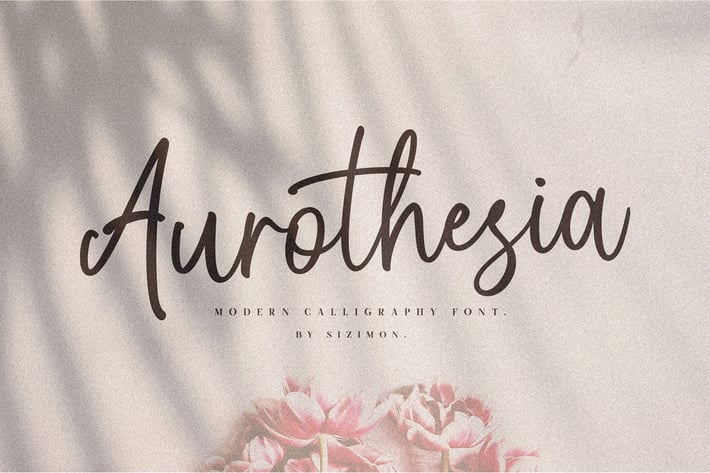
Aurotheisa Font Duo!
Introducing our latest product the Aurotheisa Font Duo! classy, contemporary pair of script and serif fonts. It is free-flowing, feminine, fashionable and friendly. Aurotheisa is perfect for fashion, e-commerce brands, trend blogs, or any business that wants to appear classy and chic.
- Uppercase,lowercase,numeral,punctuation & Symbol
- Multilingual support
- Stylistic alternates
- Discretionary ligatures
- 4 swash (numeral keys)
- PUA Encoded Characters